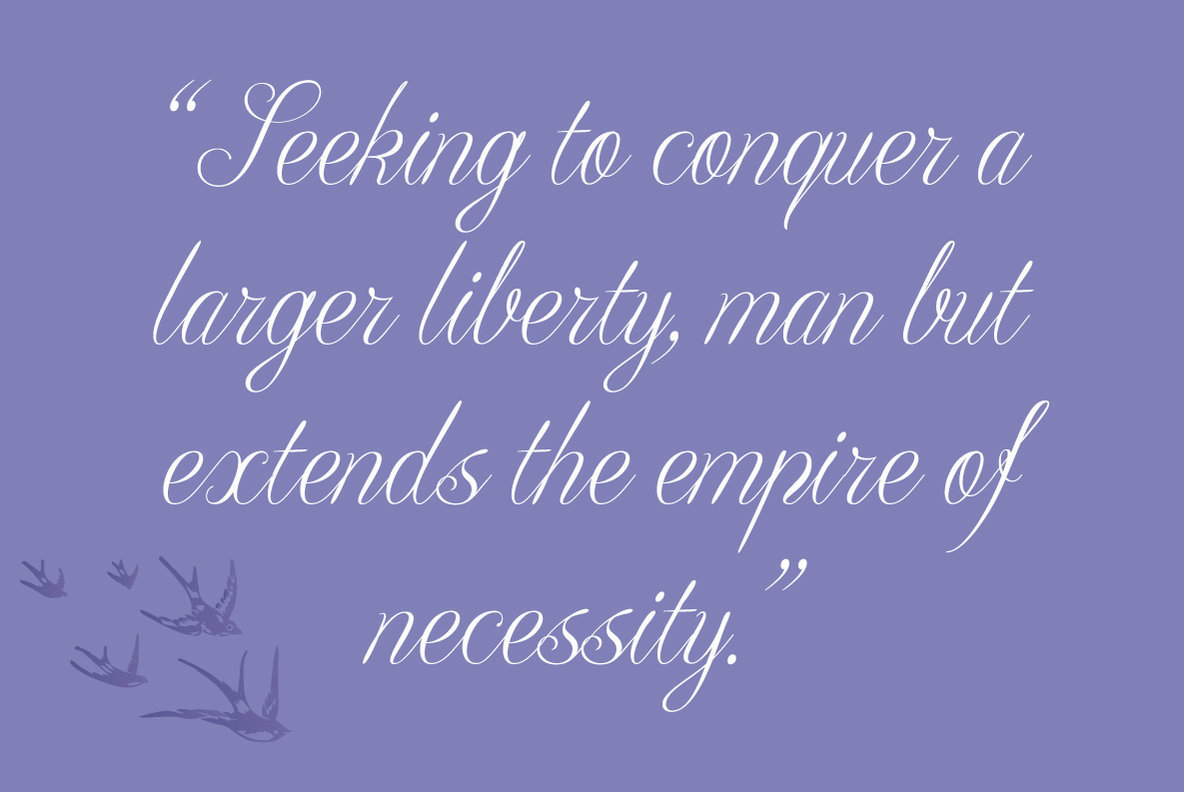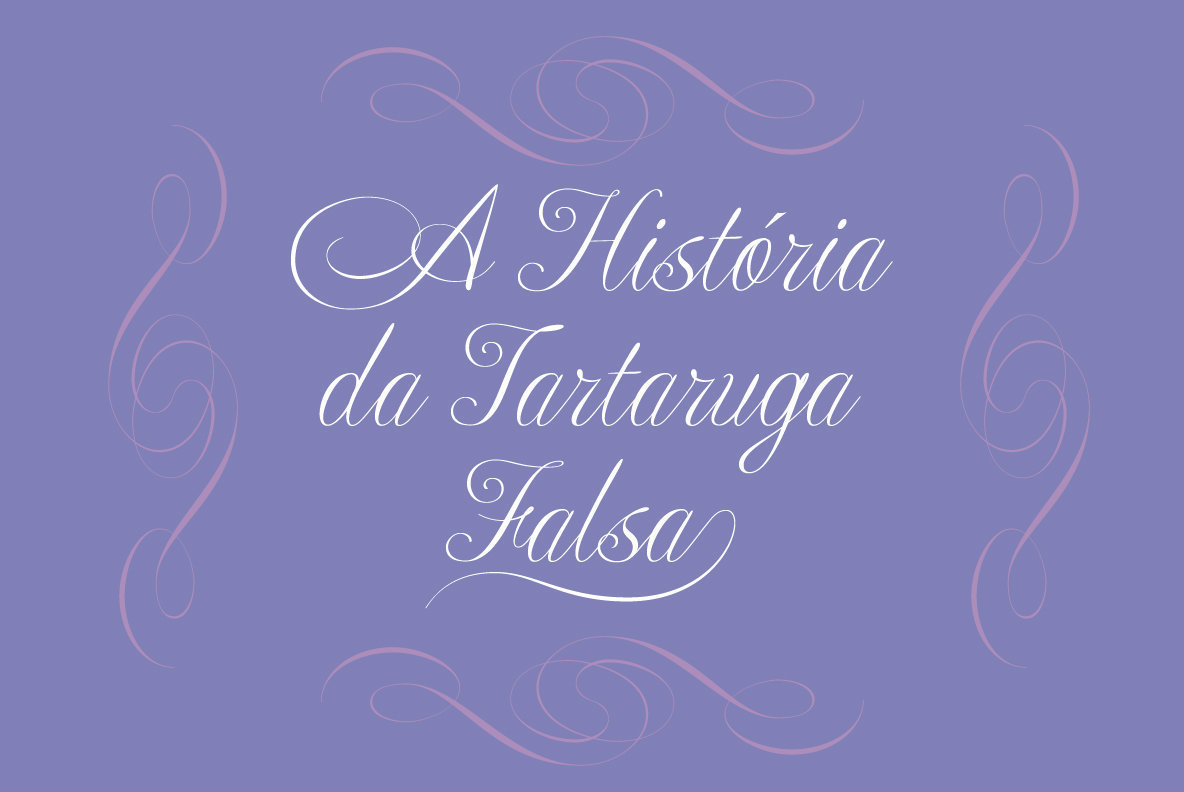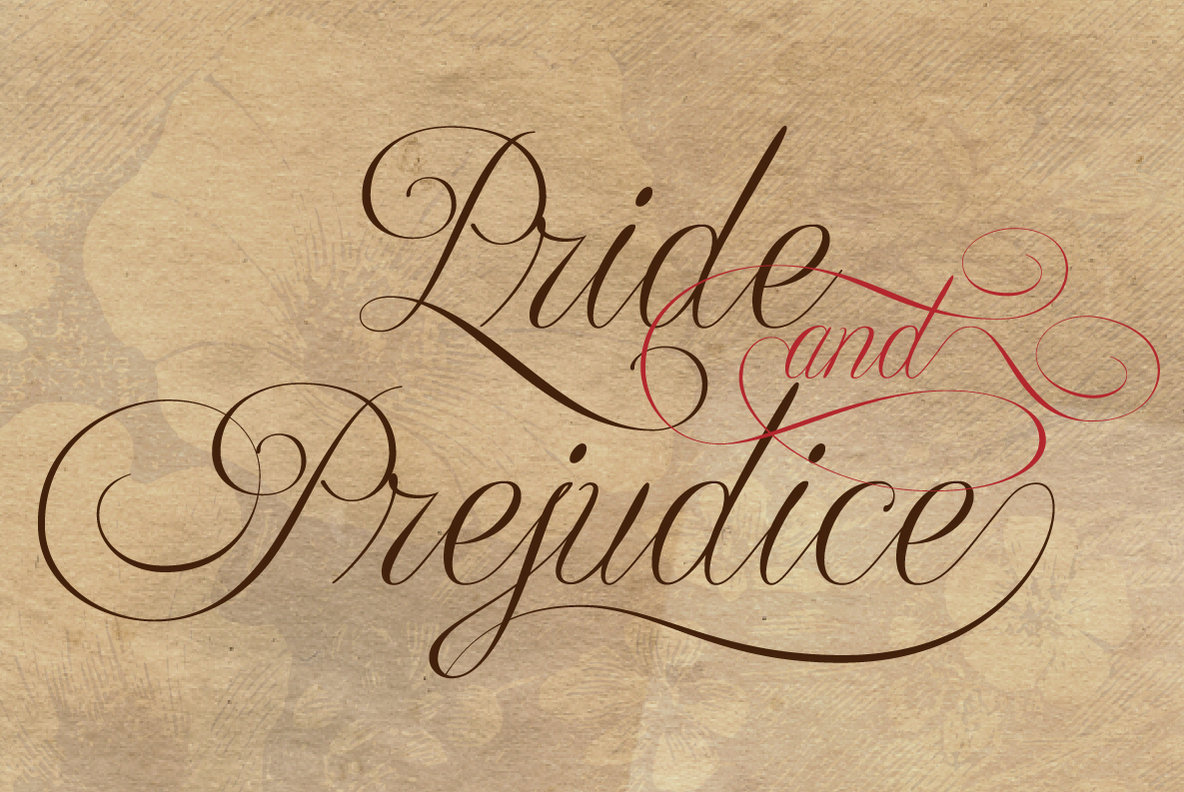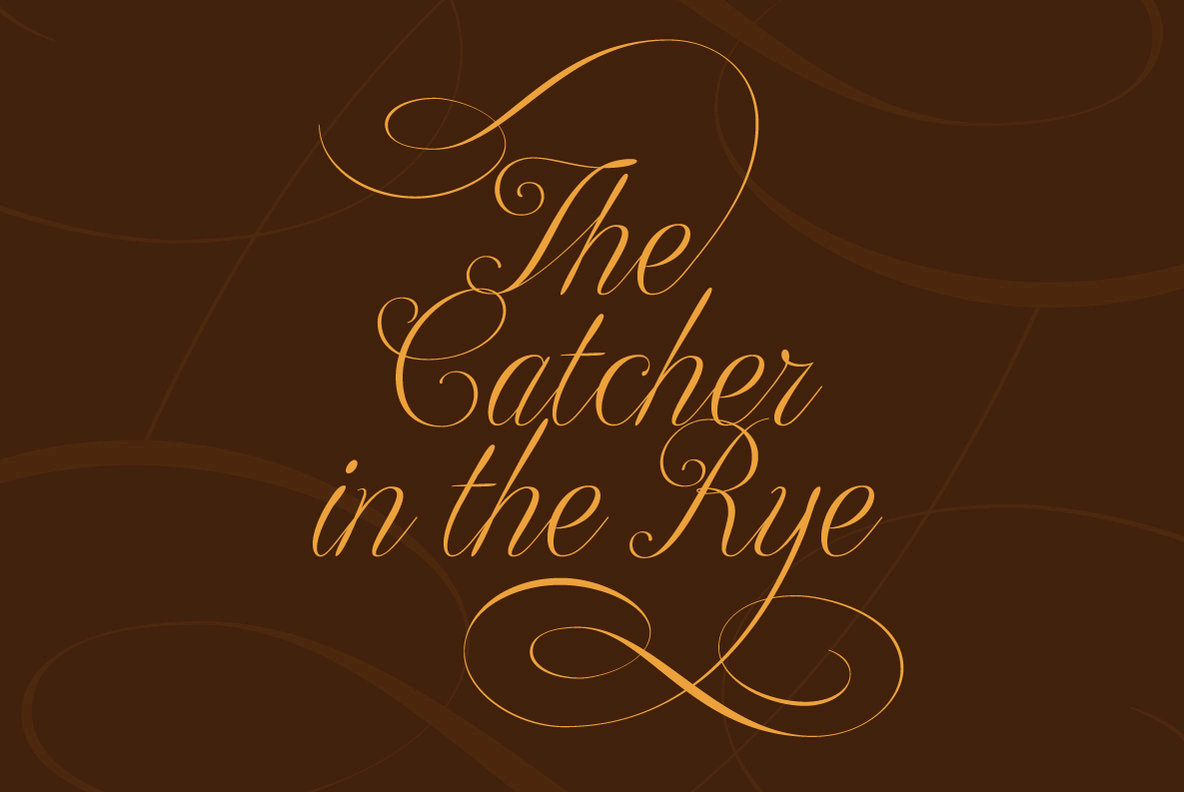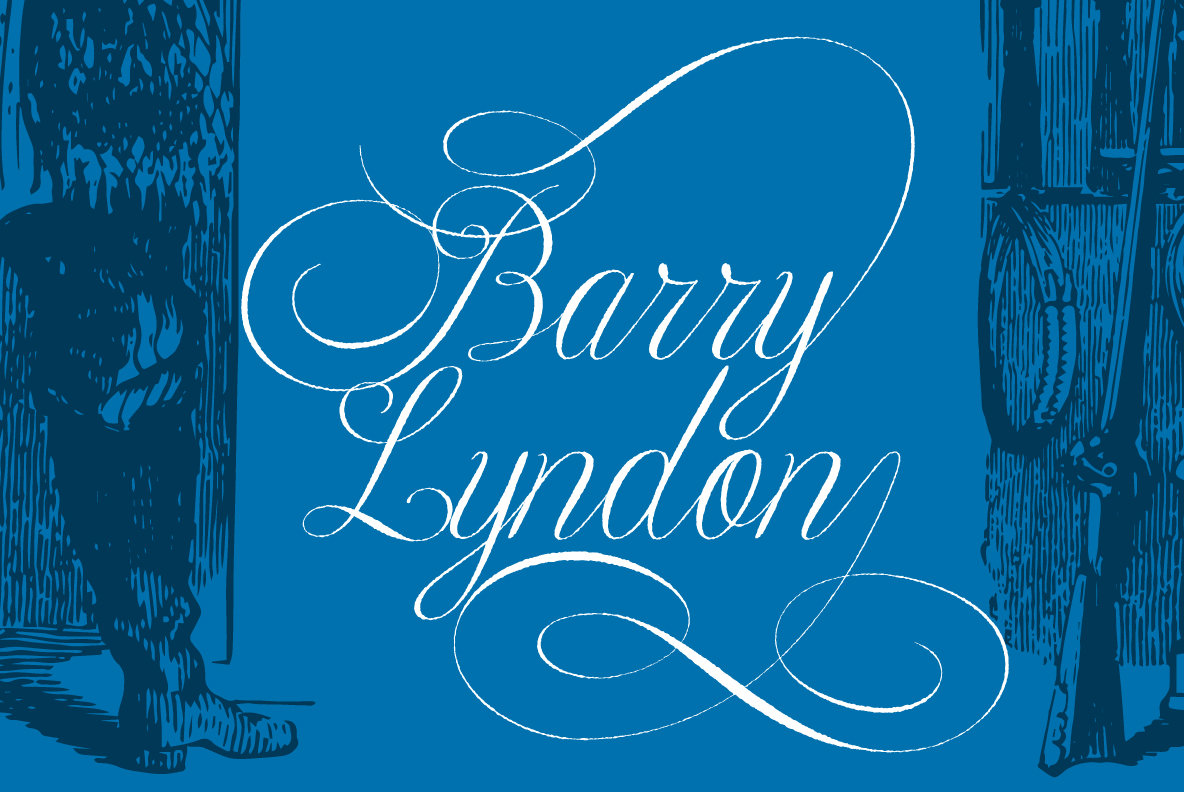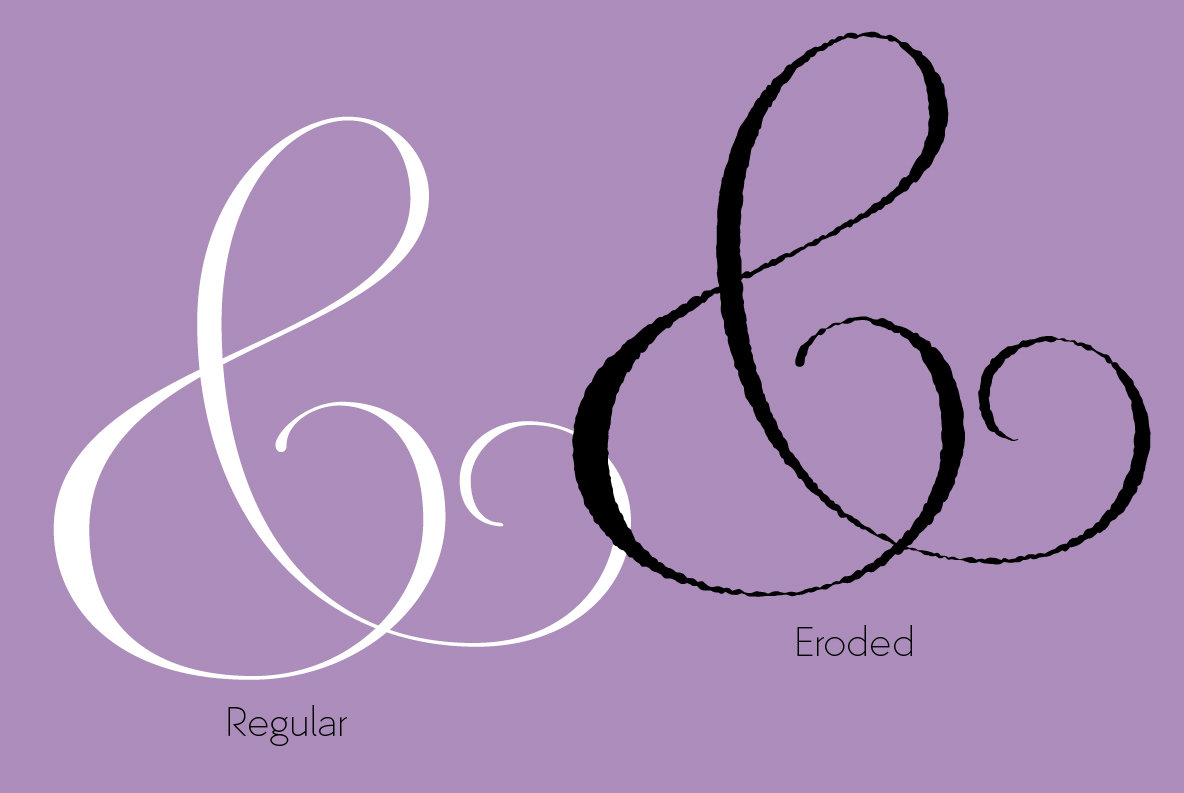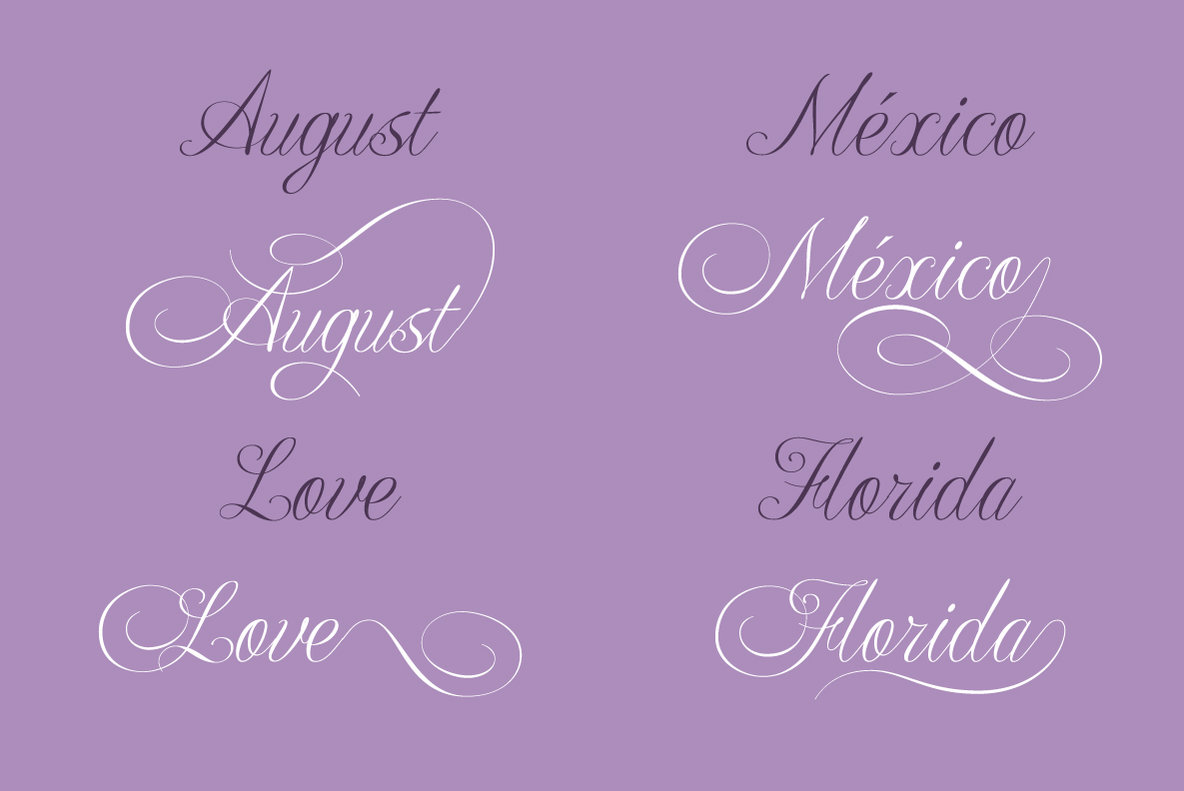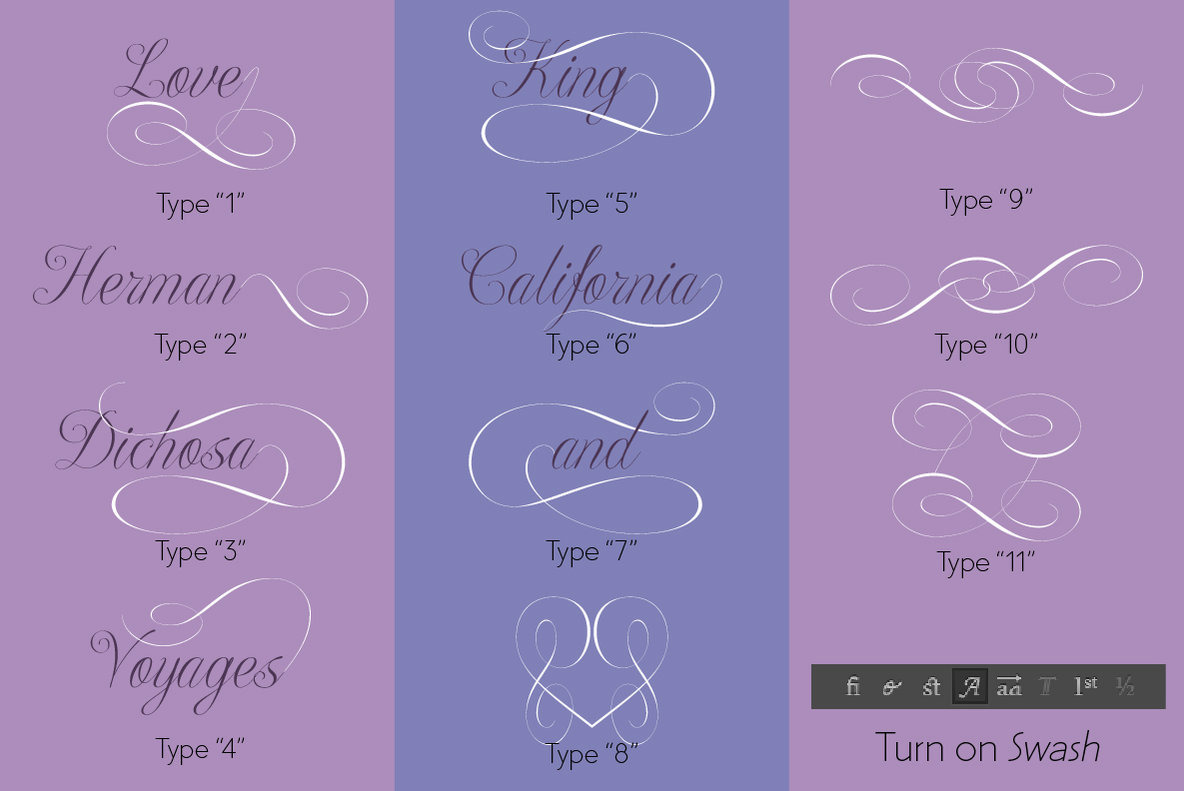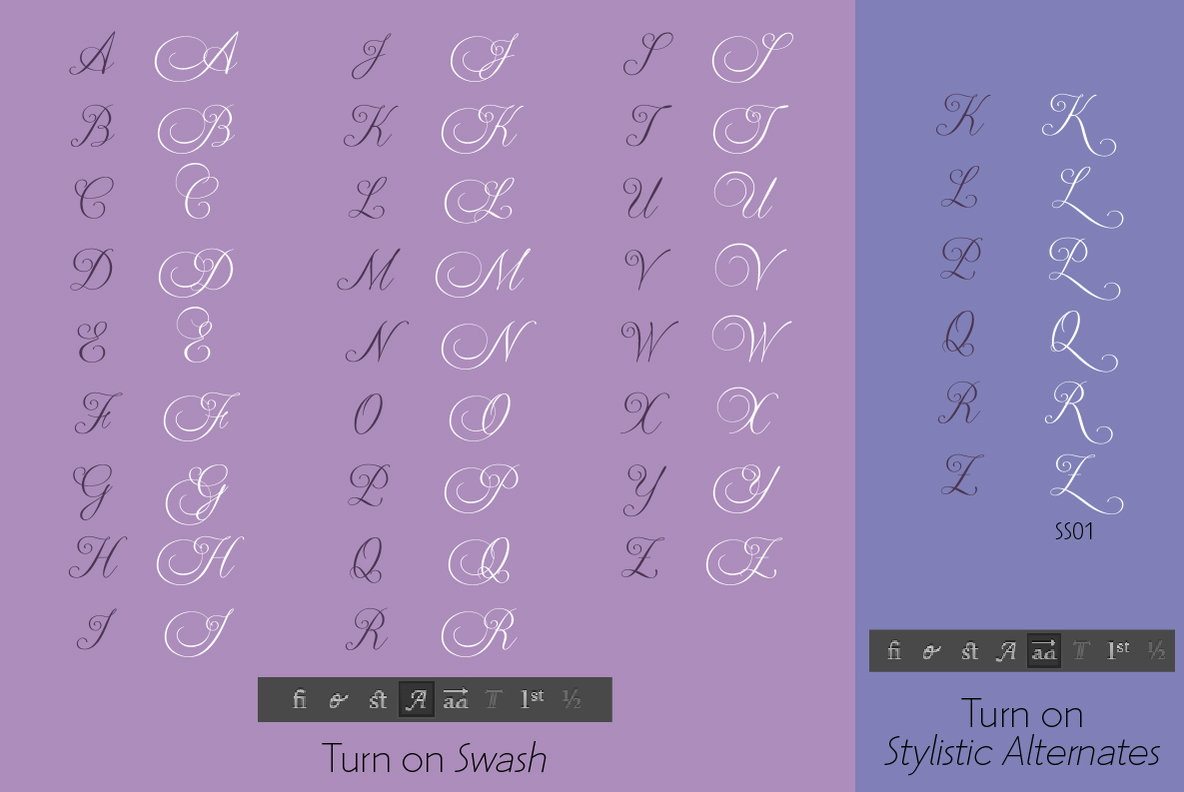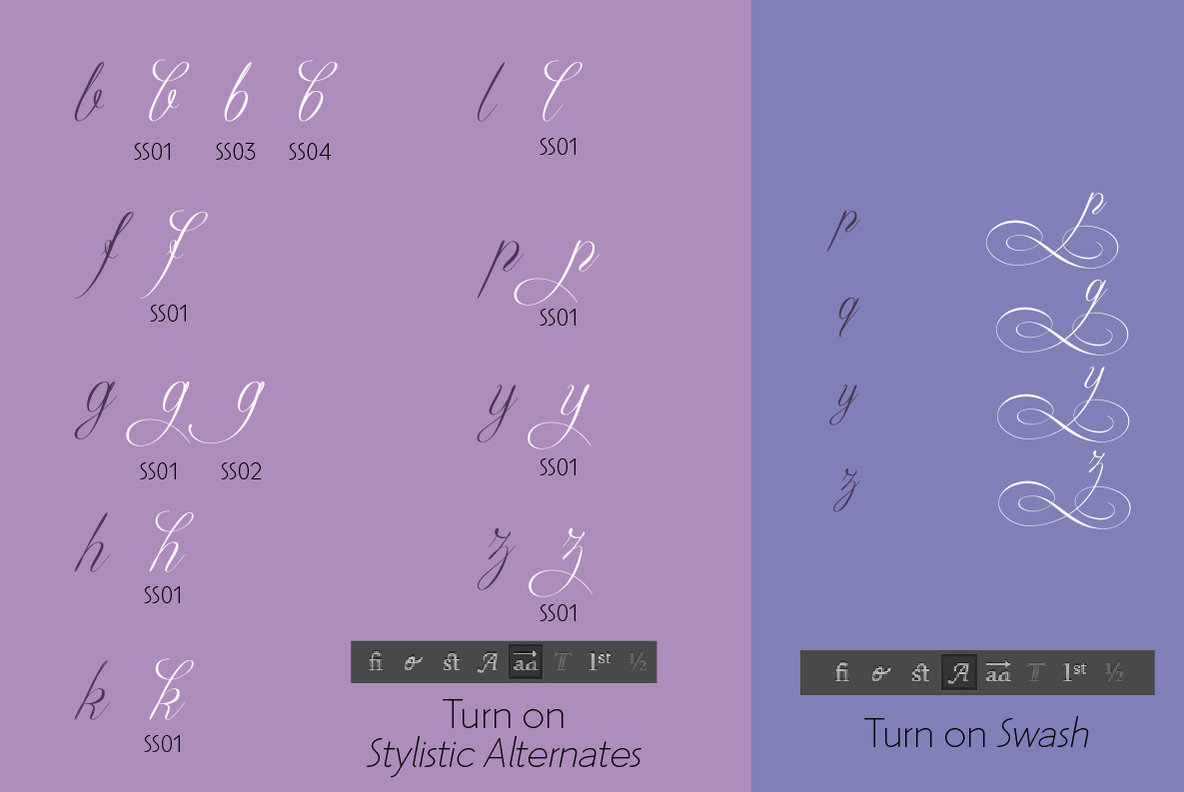
Tryal Font
Tryal Regular
Tryal Eroded
Tryal is a beautiful calligraphy font, which comes with upper and lowercase characters, punctuation, numerals, special glyphs and multiple language support.